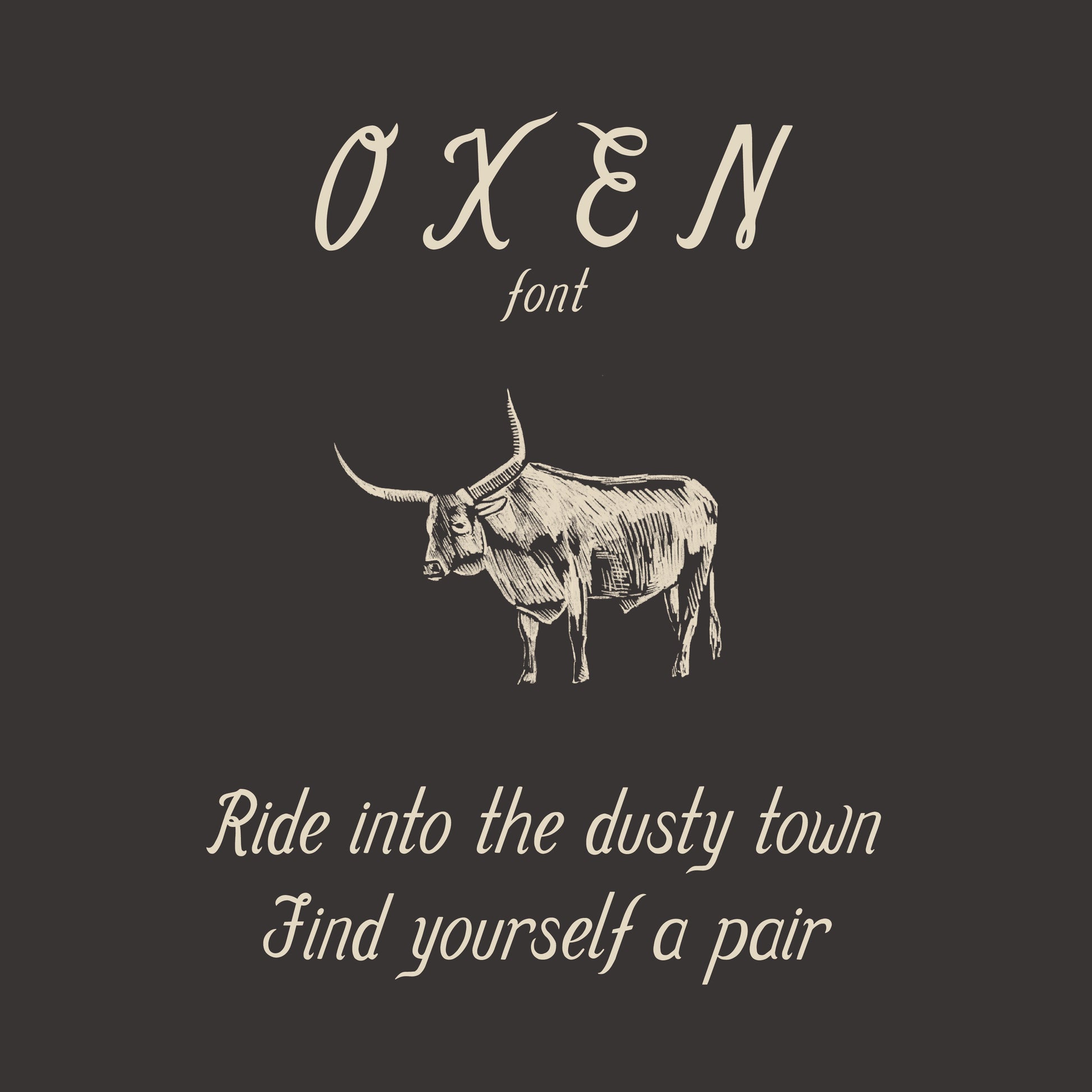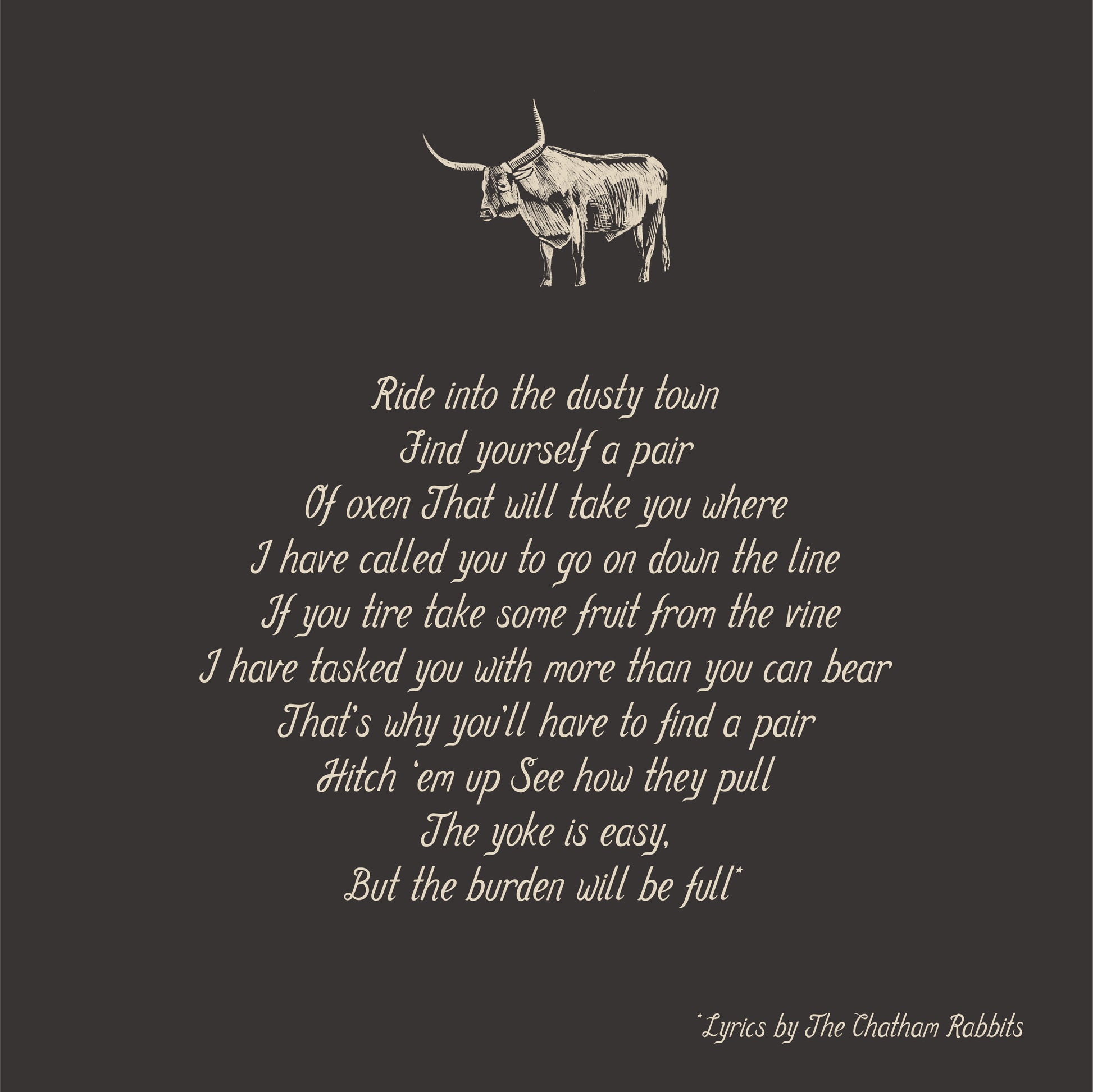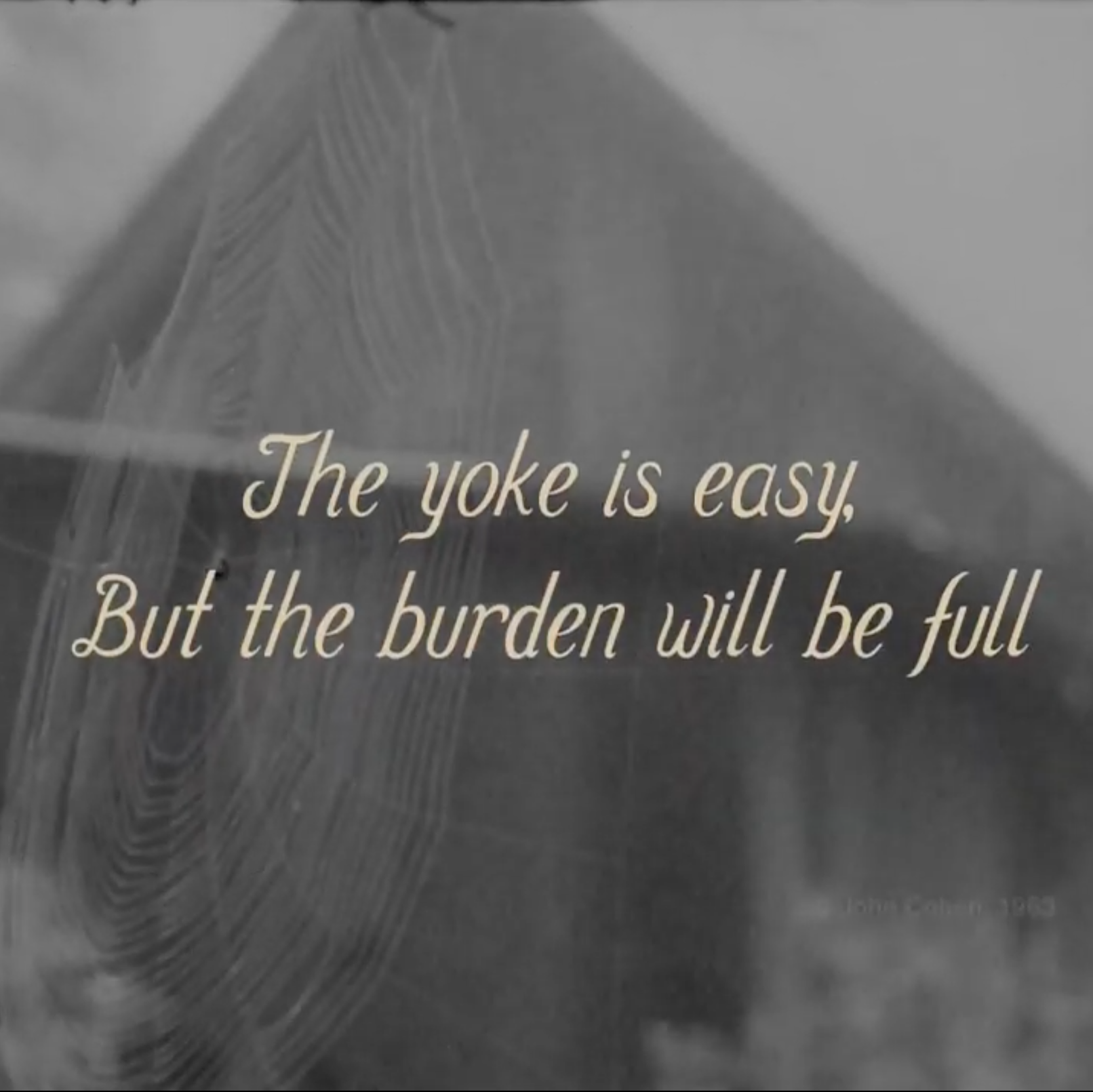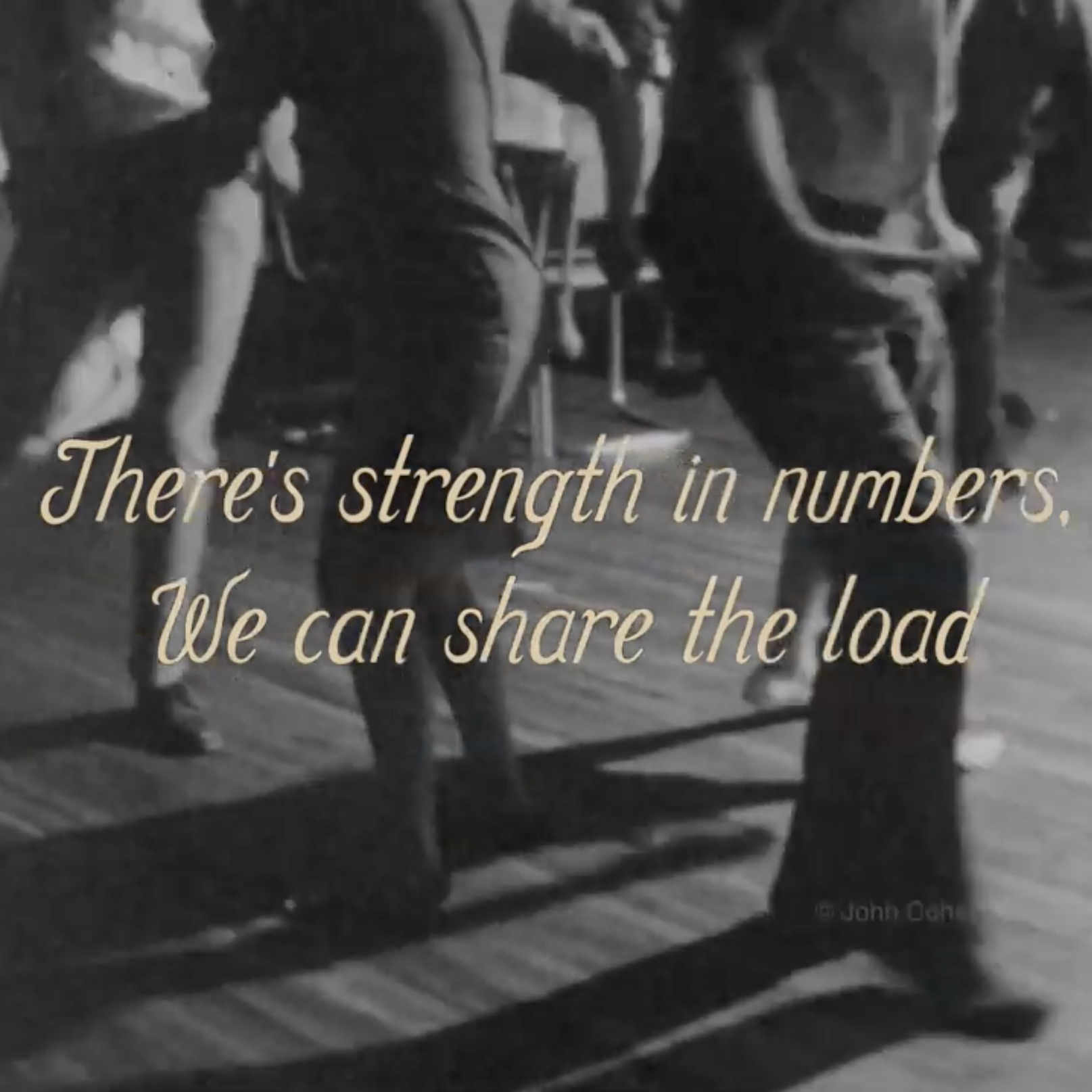
Oxen Font
Hand drawn downloadable font
This font was originally created for the music video of an original song by The Chatham Rabbits, called "Oxen", click here to view the full video!